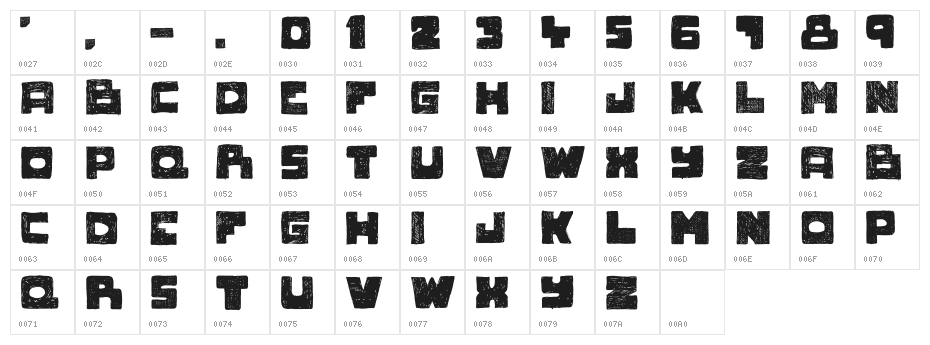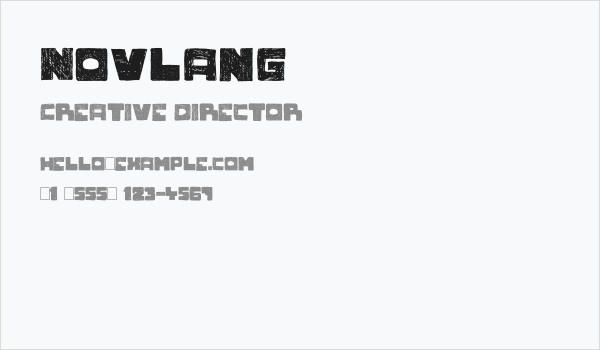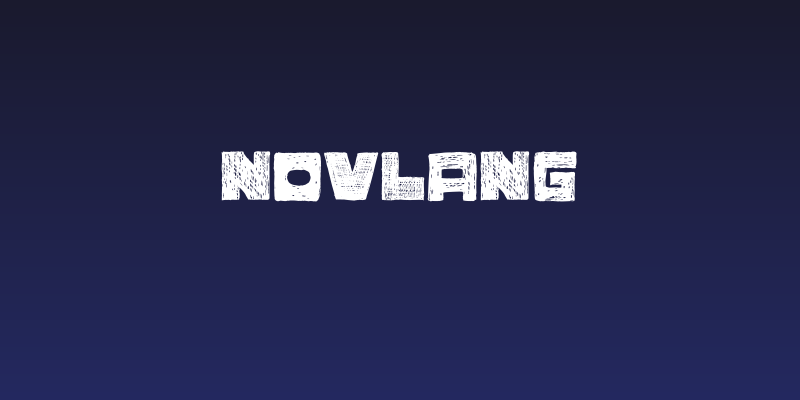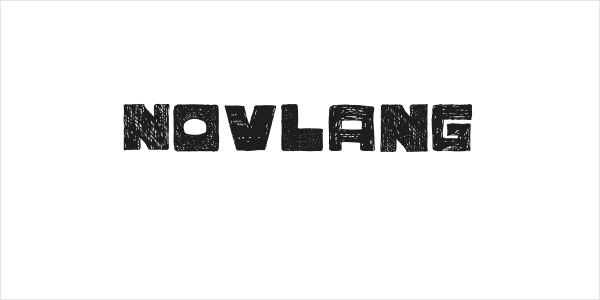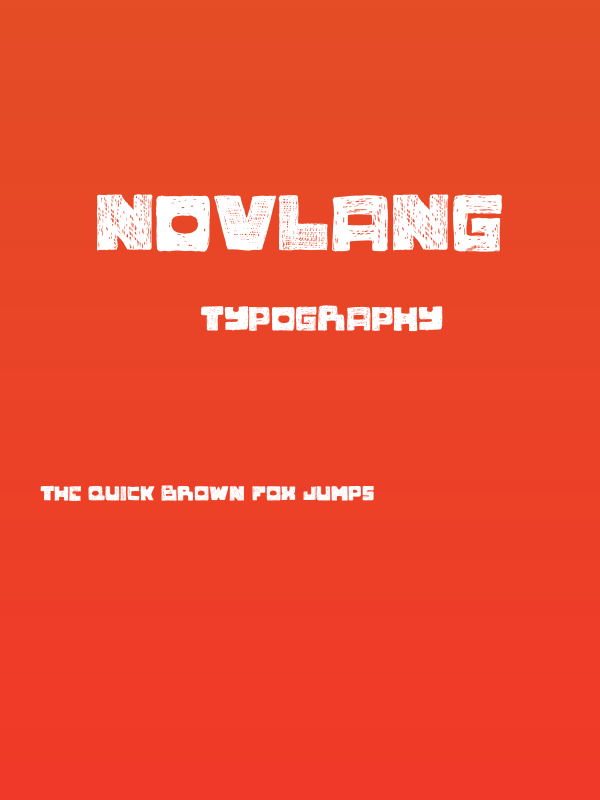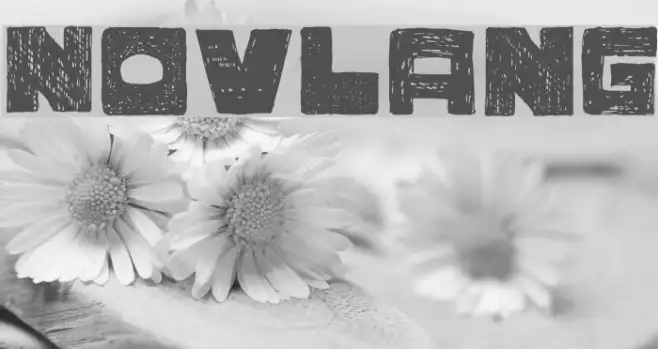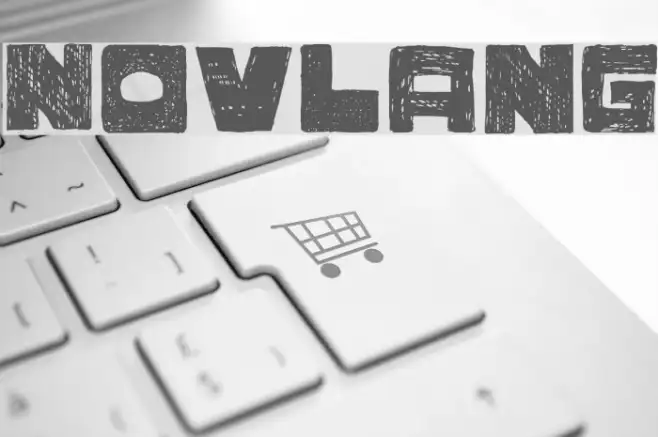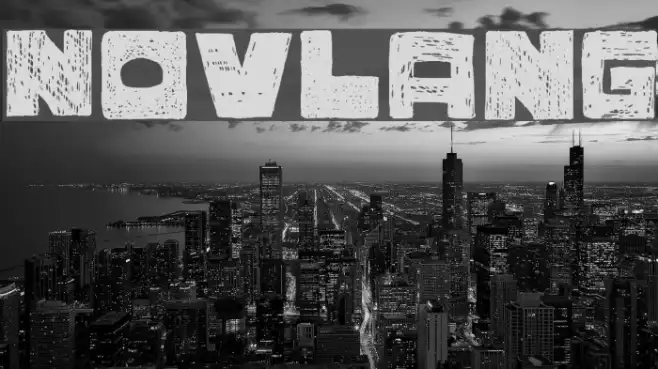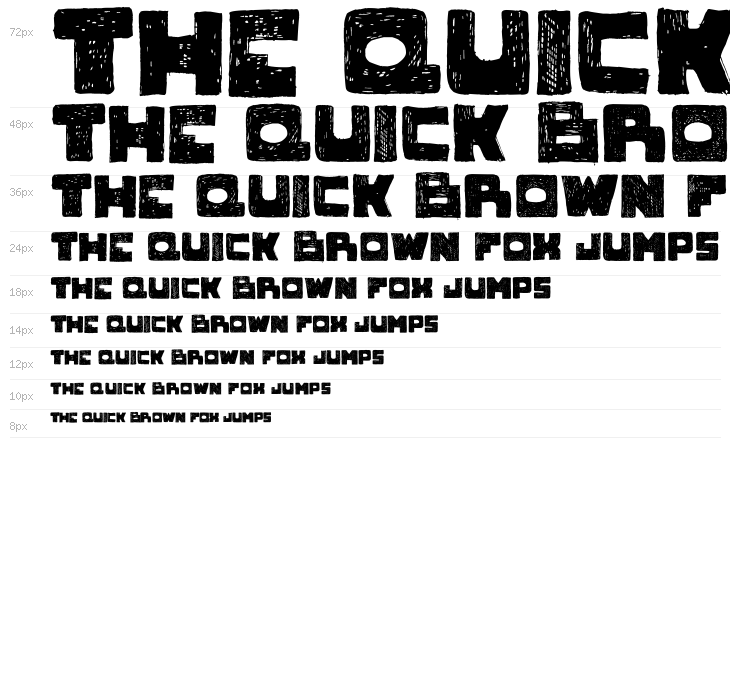
Novlang Font
Novlang Description
This font features a bold, distressed style with a textured appearance that gives it a rugged, worn look. Each character is uniquely designed with uneven edges and a slightly rough texture, creating a sense of depth and character. The uppercase and lowercase letters maintain a consistent style, with the numbers and special characters following suit. This font's distinctive appearance makes it ideal for projects that require a strong, impactful visual presence.
| Proposed Projects | Ideal for posters, album covers, branding projects, and any design requiring a bold, impactful statement. |